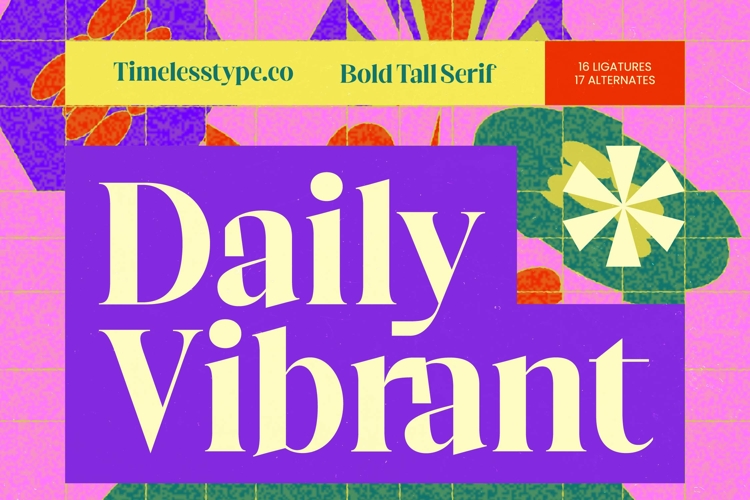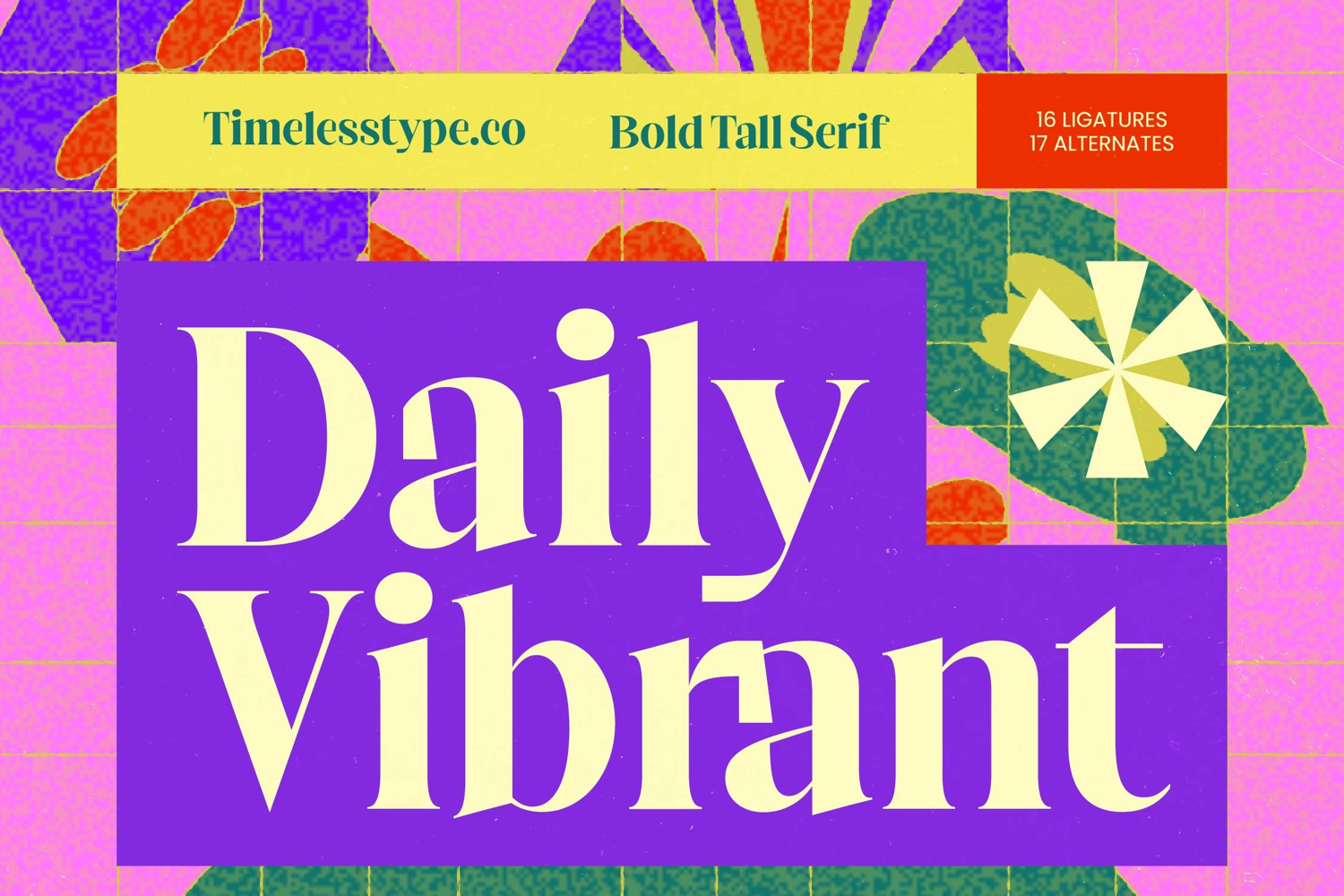
Daily Vibrant - Bold Tall Serif
Elevate your design projects with the striking presence of Daily Vibrant - Bold Tall Serif. This typeface embodies a modern-classic aesthetic, characterized by its high-contrast strokes and elongated vertical proportions. Designed to capture attention instantly, Daily Vibrant - Bold Tall Serif blends timeless elegance with a bold, contemporary edge that makes every character stand out with unparalleled clarity and sophisticated flair.
This typeface is an ideal solution for a wide range of high-end creative endeavors. It is perfect for luxury branding, editorial design, and premium packaging where a statement of quality is paramount. Whether you are crafting high-impact headlines for fashion magazines or developing a sophisticated visual identity for a boutique lifestyle brand, Daily Vibrant - Bold Tall Serif provides the visual weight and grace necessary to command the viewer's focus.